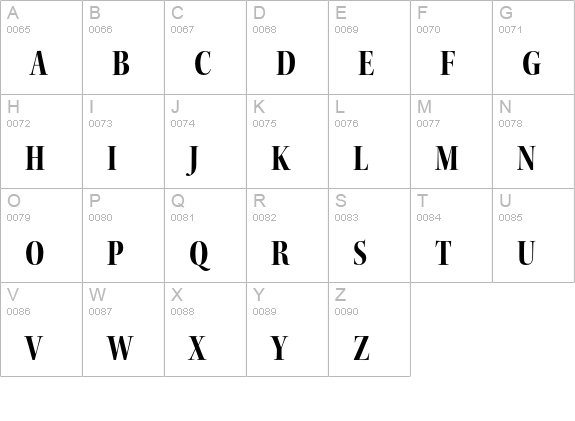
Kepler Std Bold Condensed Display is a strong, high-contrast, condensed-width variant in the Kepler typeface family \xE2\x80\x94 well suited to headlines, attention-grabbing titles, and strong calls-to-action.
The Kepler Std Bold Condensed Display font is a stunning and versatile typeface that exudes strength and sophistication. Its condensed form allows for maximum impact, making it perfect for headlines, titles, and logos that need to make a bold statement. With its clean lines and sharp edges, this font commands attention and adds a touch of modernity to any design project. Whether used in print or digital media, the Kepler Std Bold Condensed Display font stands out and captivates the audience with its powerful presence. This font is not only visually appealing but also highly functional. Its condensed nature allows for more characters to fit in a limited space, making it ideal for designs that require a lot of text without sacrificing legibility. One of the best things about the Kepler Std Bold Condensed Display font is that it is available for free. You can easily download it from FontsMarket.com, a trusted source for high-quality fonts. This means that you can enjoy the benefits of this exceptional typeface without any cost, making it a valuable asset for designers, creatives, and enthusiasts alike. In conclusion, the Kepler Std Bold Condensed Display font is a striking and versatile typeface that combines strength, sophistication, and functionality. Its bold presence and condensed form make it perfect for making a statement in headlines, titles, and logos. Best of all, it is freely available to download at FontsMarket.com, allowing you to enhance your designs without breaking the bank.